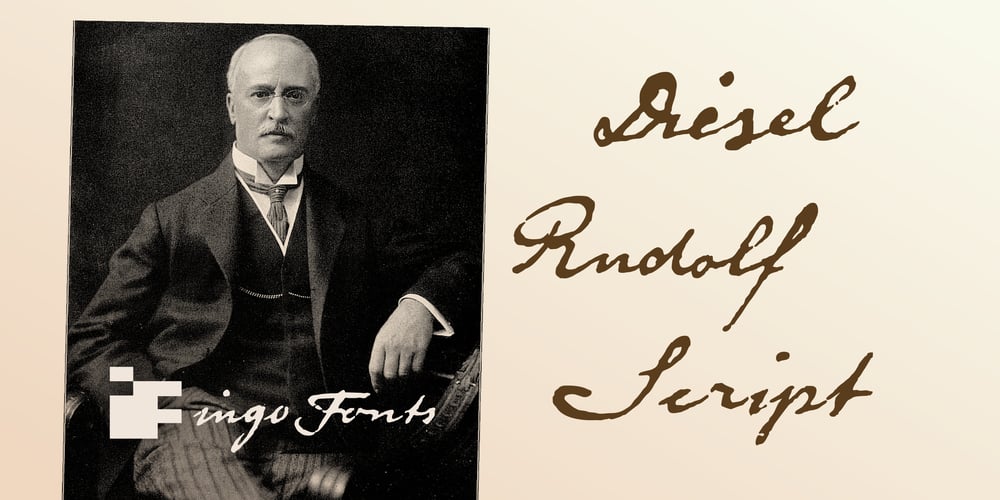
Diesel Rudolf Font Family was designed by Ingo Zimmermann and published by Ingo. Diesel Rudolf contains 1 styles and family package options. Write like the inventor of the diesel engine — it’s possible with the Diesel Rudolf Script (patterned after the original handwriting of Rudolf Diesel)…In 2008 the city of Augsburg and the MAN Group celebrated the 150th birthday of Rudolf Diesel, inventor of the diesel engine which was named after him.With the help of a few preserved original letters, it was possible to create a convincing digital version of Rudolf Diesel’s personal handwriting.The engineer and inventor Rudolf Diesel was born in Paris in 1858 and also went to school there. In1870 his family moved to England and Rudolf was sent to relatives in Augsburg where he continued going to school. Later, after completing his studies in Munich, he began working as an engineer in the machine factory Linde. Alone this part of his life makes clear why Rudolf Diesel’s handwriting was so ”jerky,“ hesitant and inconsistent. He learned to write according to the French style, that is, Latin cursive — completely different from the very correct and neat German handwriting taught at that time which he had to learn at 13 years of age.These circumstances explain why his handwriting is ”messy“ (especially for those days) with its mixtures of letter forms within a text, even within individual words. Plus, he obviously did not attach much importance to ”pretty writing.“ Sometimes the characters are wide, then narrow, sometimes large and clear and then again crammed and primitive. The individuality is emphasized with characteristics derived from quill and ink.The diversified images of the font Diesel Rudolf Script make more than 80 ligatures and stylistic alternates possible which can be selected with help from the OpenType functions Ligatures and Discretional Ligatures.